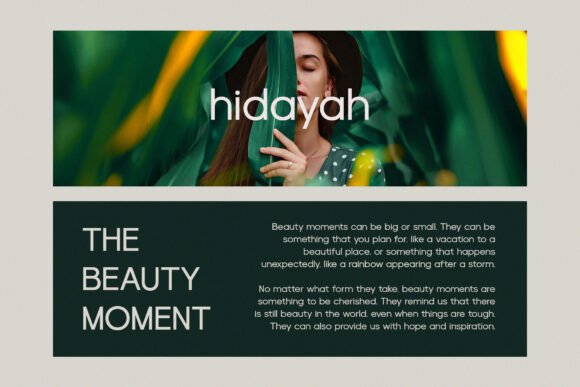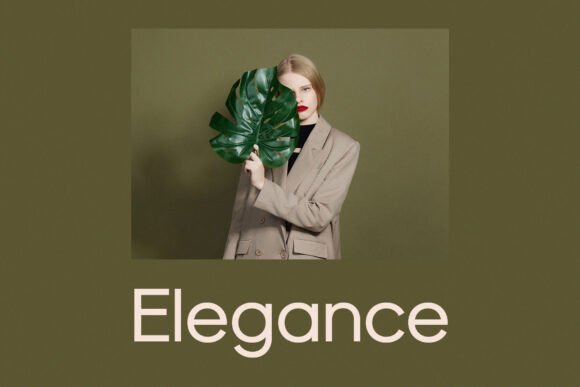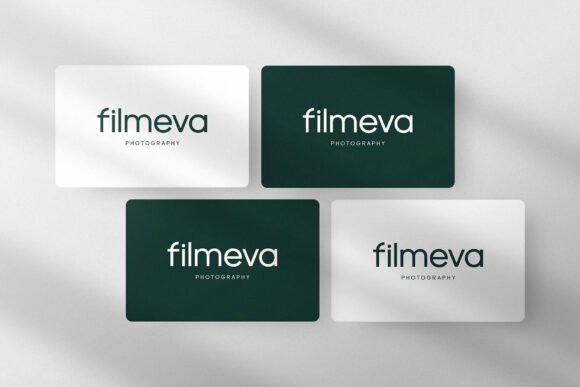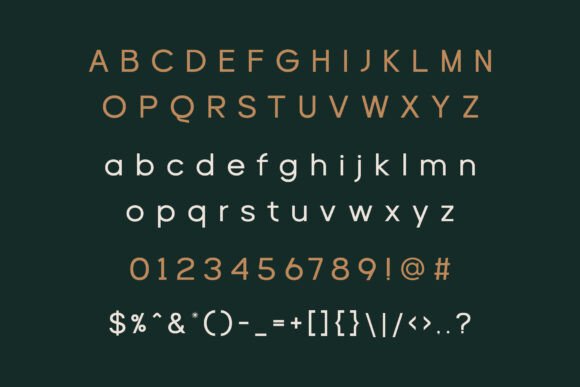
Introduction to Quicking Font
Have you ever found yourself stuck in a creative rut, unable to convey the perfect message with your design? Maybe you’ve been staring at a blank canvas, trying to come up with the perfect font to match your vision. For designers, the right font can make all the difference in bringing a project to life.
That’s where the Quicking Font comes in – a modern and simple sans-serif font that’s perfect for adding a touch of elegance to your creative projects. With clean lines and smooth curves, this design resource is sure to elevate your work and leave a lasting impression.
Whether you’re working on a magazine, product packaging, or invitation, the Quicking Font is a valuable addition to your design toolkit. And the best part? It’s available for free download, making it a high-quality design resource that’s accessible to designers of all levels.
Key Features of Quicking Font
- Features a clean and modern design, perfect for use in logos, typography, and other creative applications.
Honest Review: Quicking Font
I recently had the opportunity to work with the Quicking Font for a creative project and was pleasantly surprised by its quality and versatility. ✨ One of the standout features is its ability to work seamlessly with transparent backgrounds, making it a great resource for designers who need a clean and modern look.
- High-quality design that is perfect for creative projects
- Seamless integration with transparent backgrounds
- Some users may find the font too minimalist
- Limited character set compared to other fonts
- May not be suitable for projects that require a bold or dramatic font
Overall, I’m impressed with the Quicking Font and would recommend it to designers looking for a high-quality, free design resource. It’s a great addition to any design toolbox and can help take creative projects to the next level.
Common Use Cases for Quicking Font
Quicking Font is ideal for a wide range of creative projects, including logos, brochures, business cards, and website headers. Its unique design and transparent background make it a popular choice among designers looking for a high-quality design resource.